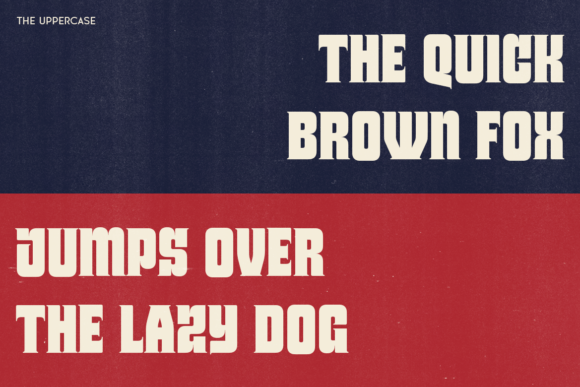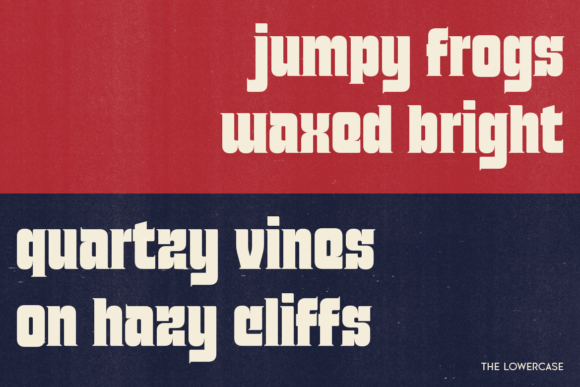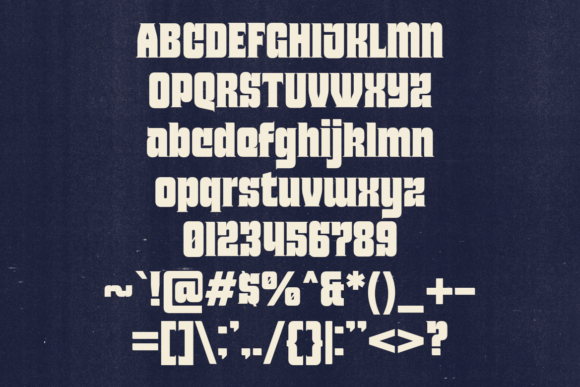
Discover the Timeless Elegance of Bameros Font
As a designer, you’ve probably experienced that moment when a single font choice can make or break a project. You’re browsing through your font library, scrolling through design inspiration boards, and suddenly, a particular font catches your eye. Its bold shapes, elegant curves, and historical charm transport you to a bygone era, and you know you’ve found the perfect fit. For me, that font is Bameros, a serif font that embodies the essence of vintage beer labels, iconic signs, and logos from the past.
Bameros Font is more than just a font – it’s a statement piece that brings a touch of history to modern branding. Its strong, distinctive shapes and remarkable character make it a valuable asset for designers looking to elevate their brand with a classic yet unforgettable look.
Bameros Font Key Features
- Unique Characteristics: Distinctive, modern design with a playful twist, ideal for creative projects and branding
Bameros Font Review
Overall, I have mixed feelings about the Bameros Font. On the one hand, there are some nice aspects to it, while on the other, there are some limitations that might make it less appealing to some designers.
- Unique character set: The Bameros Font has a distinctive character set that sets it apart from other fonts. It’s great for adding some visual interest to a design.
- High contrast: The font has a high contrast between the thick and thin strokes, which makes it easy to read at larger sizes.
- Clean lines: The clean lines and simple shapes of the font make it a great choice for modern and minimalist designs.
- Limited versatility: The font’s unique character set can also be a limitation, as it may not be suitable for all types of designs.
- Lack of italics: There is no italic version of the font, which may be a problem for designers who need to use italics in their designs.
- Not suitable for body text: Due to its high contrast and unique character set, the font may not be suitable for body text and may be more effective for headlines or titles.
Overall impression
While the Bameros Font has some nice aspects to it, its limitations may make it less appealing to some designers. It’s a great choice for modern and minimalist designs, but may not be suitable for all types of projects. With some careful consideration and planning, it can be a great addition to a designer’s toolkit.
Getting the Most Out of Bameros Font
Here are some tips for getting the most out of the Bameros Font:
- Use the font in bold and italic styles to add emphasis.
- Pair the font with complementary colors to create a visually appealing design.
- Experiment with different font sizes to create a dynamic and engaging layout.
The Bameros Font is ideal for use in:
- Advertising and marketing materials.
- Graphic design and visual communications.
Alternatives to Bameros Font